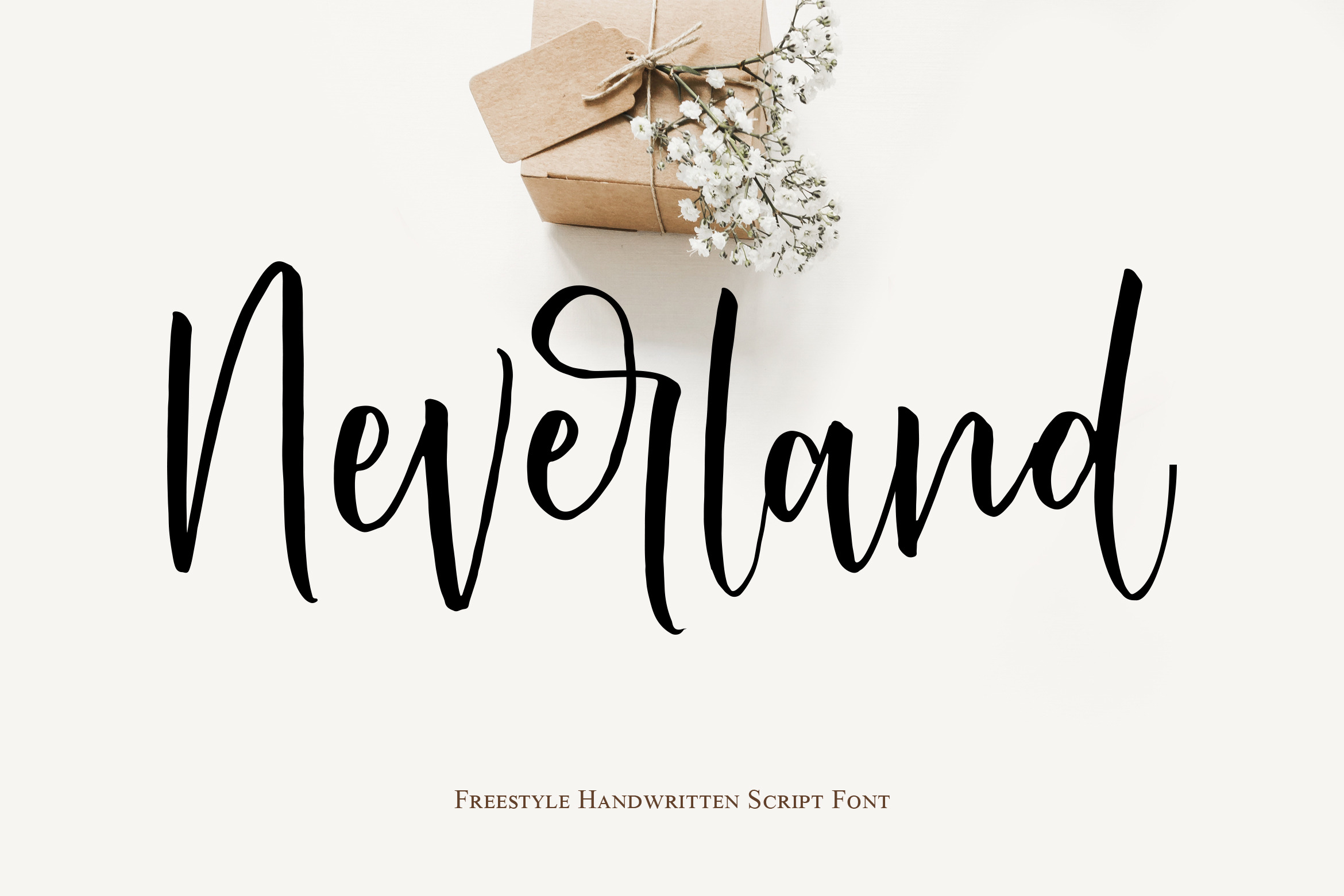
Neverland Handwritten Script Font - is a new font that is authentic and suitable for many of your visual needs, like for invitation, greeting cards, branding materials, business cards, quotes, posters, and more!
this font Open Type features such as Stylistic Sets, Stylistic Alternates, Contextual Alternate, SWASH and Ligature. The Open Type features can be accessed by using Open Type savvy programs such as Adobe Illustrator, Adobe InDesign, Adobe Photoshop Corel Draw X version, And Microsoft Word. And this Font has given PUA unicode (specially coded fonts). so that all the alternate characters can easily be accessed in full
- special character for Alternates and Ligatures